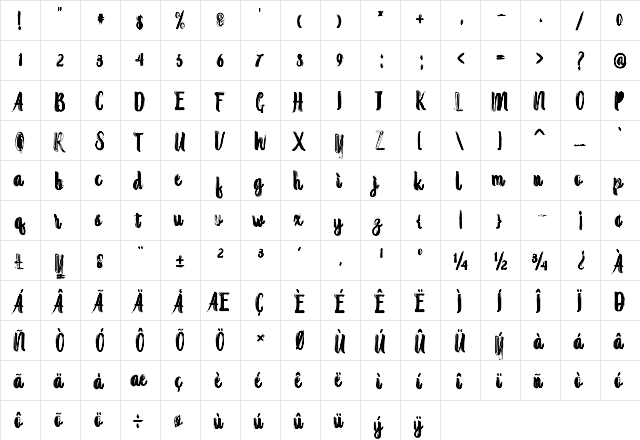
Randoem Brush Regular Font Preview
Randoem Brush Regular
Randoem Brush Regular Font Details
Design Context for Randoem Brush Typeface
Randoem Brush flows with the natural rhythm of handwritten lettering, making it ideal for designs that call for warmth and personal expression.
Font Pairing: Combine Randoem Brush with a simple geometric sans for maximum contrast — the tension between flowing curves and clean structure is a classic typographic pairing.
Pro Tip: Pair Randoem Brush with a clean sans-serif for supporting text. The contrast between fluid script and geometric structure creates an elegant typographic hierarchy.